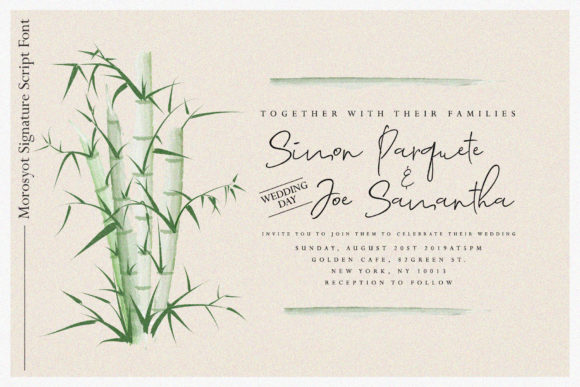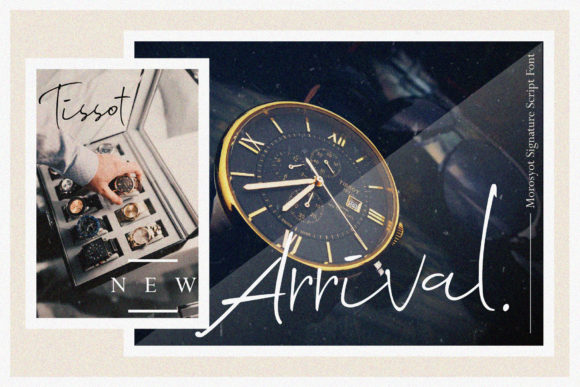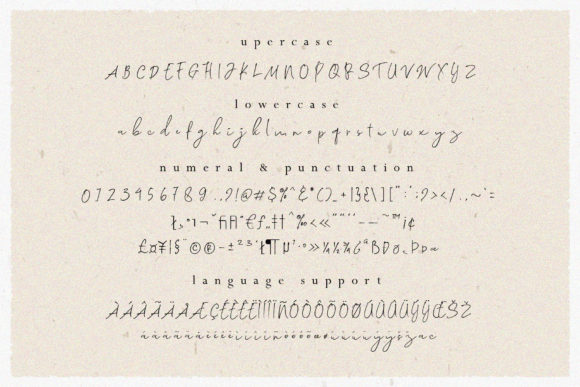
Introduction to Morosyot Script Font
Have you ever been stuck in front of a blank canvas, struggling to bring your creative vision to life? The blank page stares back at you, taunting you with its emptiness. But then, like a breath of fresh air, you stumble upon the perfect design resource. For designers, this moment is pure magic. It’s the moment when everything falls into place, and your project takes off in the most incredible way.
One such design resource that has been making waves in the design community is the Morosyot Script Font. With its elegant touches and dancing baseline, this font is perfect for a wide range of creative projects, from wedding invitations to logos and posters.
Key Features of Morosyot Script Font
- High-quality, elegant script font ideal for creative projects and design resources.
- Features a transparent background, allowing for seamless integration with various design elements.
- Includes 6 font styles (Regular, Italic, Bold, Bold Italic, Outline, and Fill) for added versatility.
- Supports a wide range of languages, including English, making it a great choice for international design projects.
Honest Review: Morosyot Script Font
As a designer, I’m always on the lookout for high-quality design resources that can elevate my creative projects. Recently, I came across the Morosyot Script Font, and I’m excited to share my honest review.
Here are some aspects that work well for me:
- ✨ Unique and elegant design that adds a touch of sophistication to any project.
- ✨ Perfect for projects that require a handwritten or cursive font style.
- ✨ Transparent background, allowing for seamless integration with any design element.
- ⚠️ Limited character set, which may not be ideal for projects that require extensive typing.
- ⚠️ May not be suitable for projects that require a large font size, as it can become difficult to read.
Overall, I’m impressed with the Morosyot Script Font’s design and usability. While it has some limitations, it’s an excellent addition to any designer’s toolkit, especially for projects that require a unique and elegant touch. If you’re looking for a high-quality design resource, I’d definitely recommend giving it a try.
The Morosyot Script Font is a high-quality, elegant font perfect for creative projects. It’s available for free download and features a transparent background, making it ideal for overlaying on images or videos.
Tips for Getting the Most Out of Morosyot Script Font
To get the most out of the Morosyot Script Font, use it in conjunction with other high-quality design resources, such as images or illustrations. Experiment with different font sizes, colors, and styles to create a unique look. You can also use the font to add a touch of elegance to your designs.
The Morosyot Script Font is perfect for a variety of design projects, including wedding invitations, branding materials, and social media graphics. Its elegant and sophisticated look makes it ideal for creative projects that require a touch of class and sophistication.